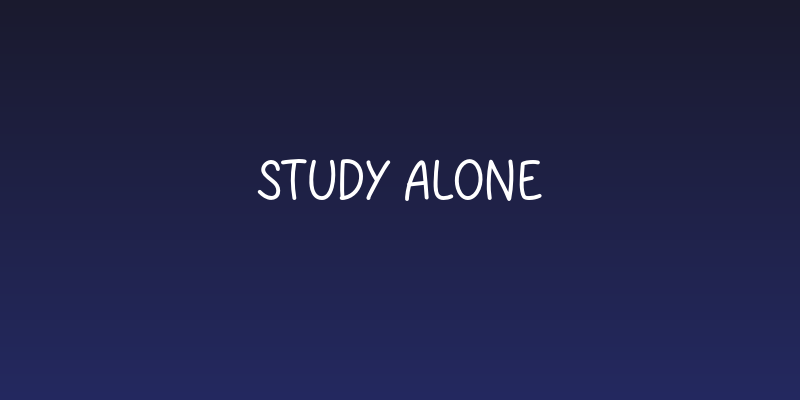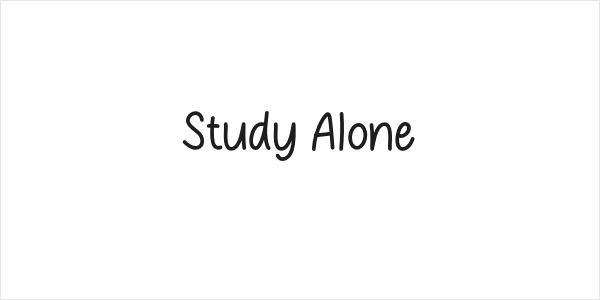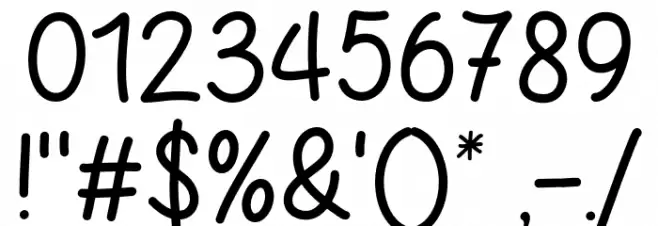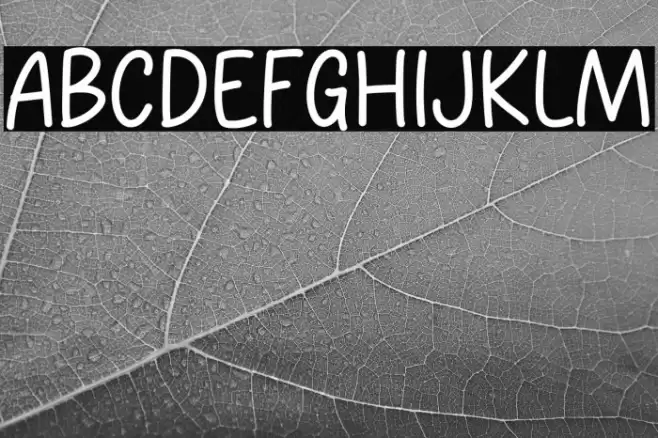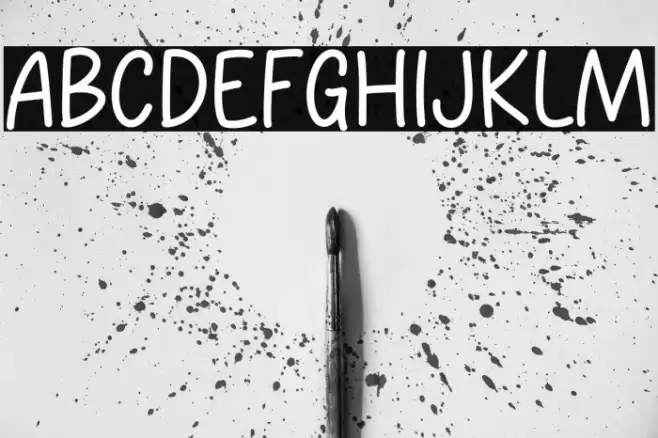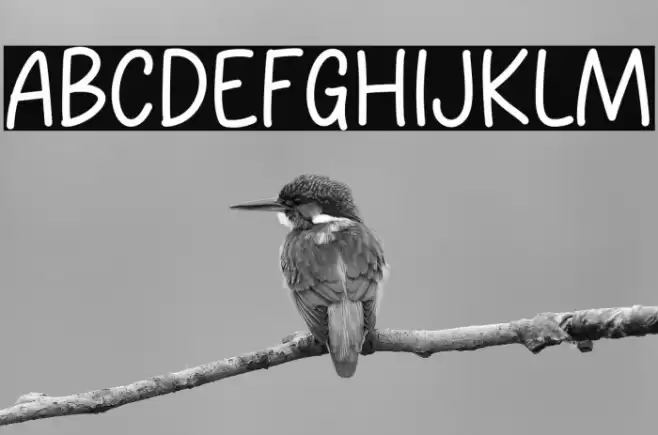
Study Alone Font
Study Alone Description
This font features a playful and casual handwritten style, characterized by its smooth curves and rounded edges. The letters are slightly slanted, giving it a dynamic and informal appearance. The uppercase and lowercase letters maintain a consistent flow, while the numerals are clear and legible. Special characters are well-integrated, maintaining the overall aesthetic. The font's friendly and approachable look makes it suitable for a variety of creative projects.